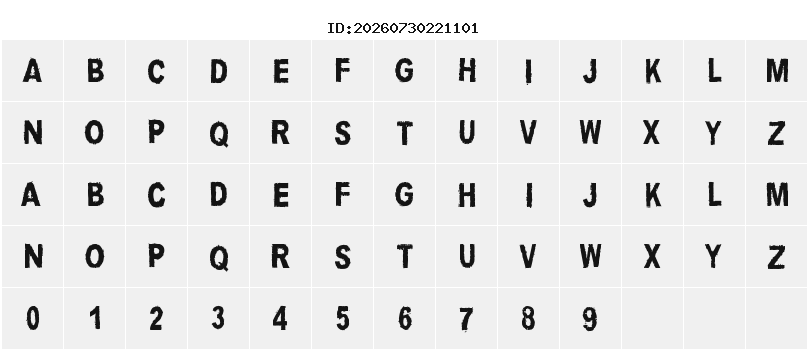
Louis Cypher Preview
• Font Name: Louis Cypher
• Full Font Name: Louis Cypher
• Version: Version 1.00 October 4, 2014, initial release
• Designer: junkohanhero
About Louis Cypher.ttf
Louis Cypher.ttf is a modern, elegant sans-serif font designed for ultimate readability and visual harmony. Perfect for branding, headlines, web design, and print materials.